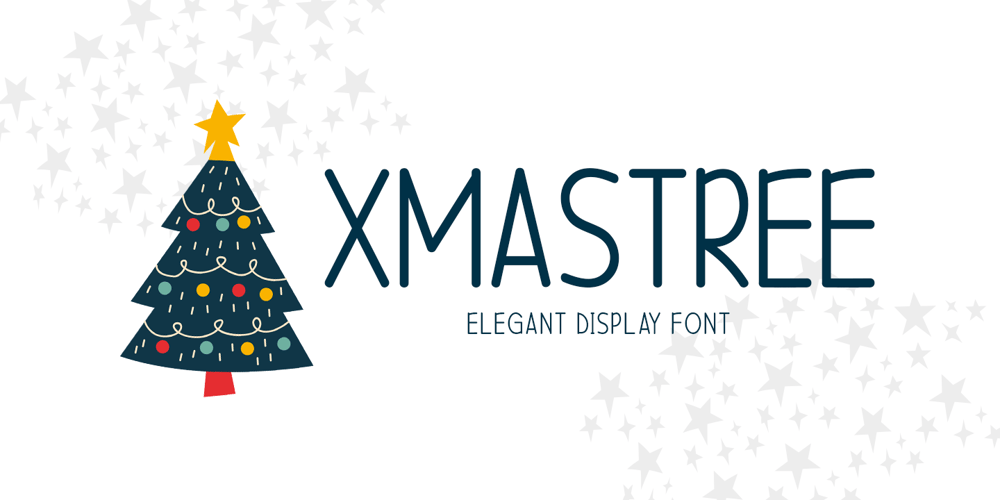
Xmastree Font Family was designed by Md Shohail Bhuian and published by Seemly Fonts. Xmastree contains 1 styles and family package options. Xmastree is an elegant, brand-new display font that brings warmth and personality to any design. Ideal for a wide range of applications, including stationery, logos, t-shirts, print designs, website headers, photo frames, flyers, music covers, and posters, it’s the perfect choice for adding a personal touch to your work.